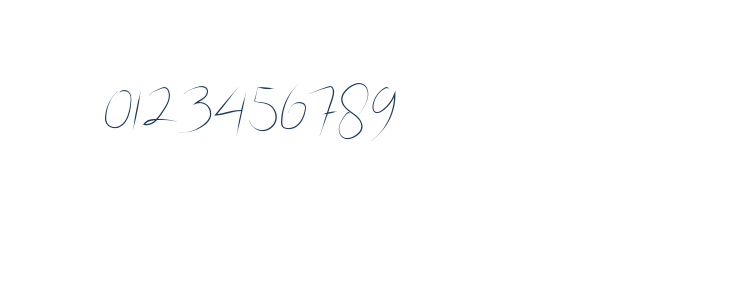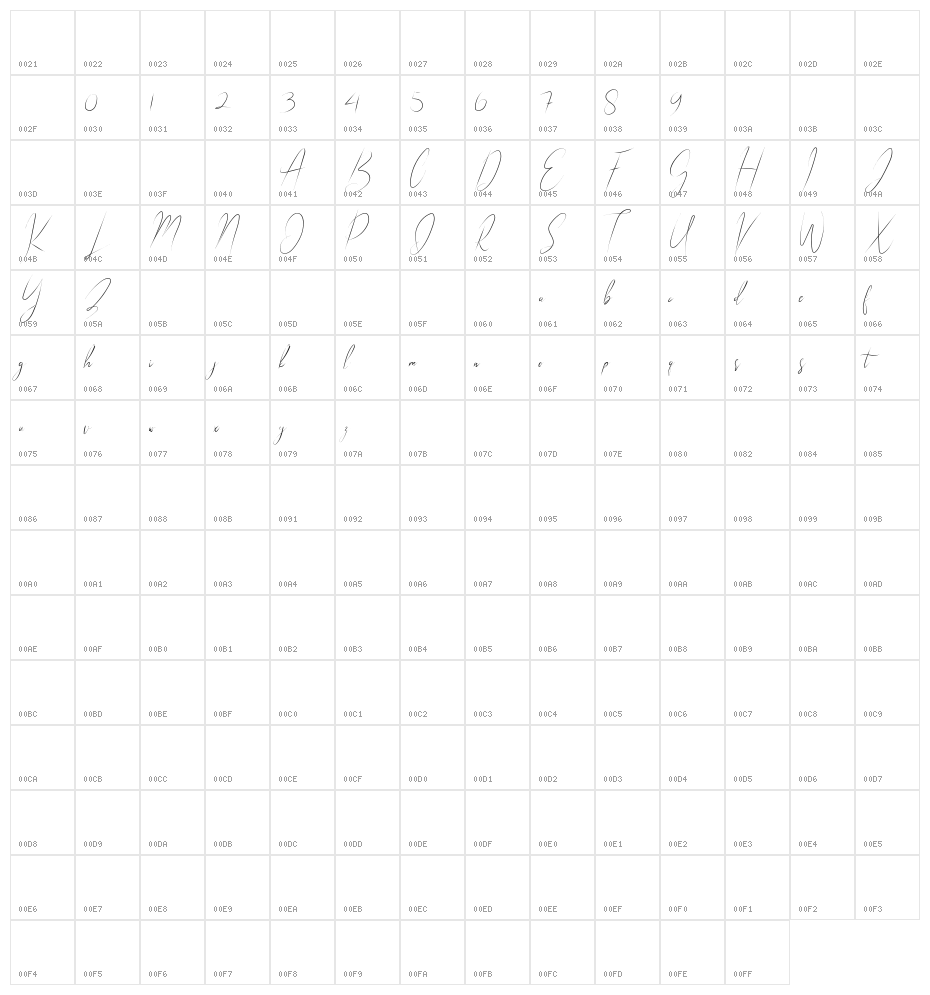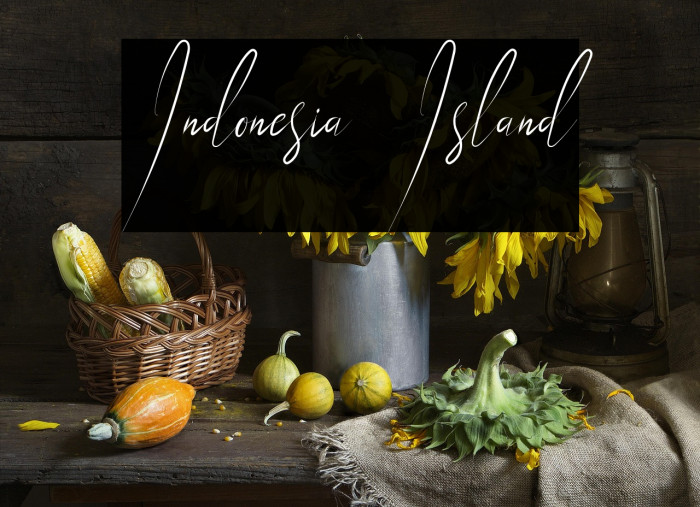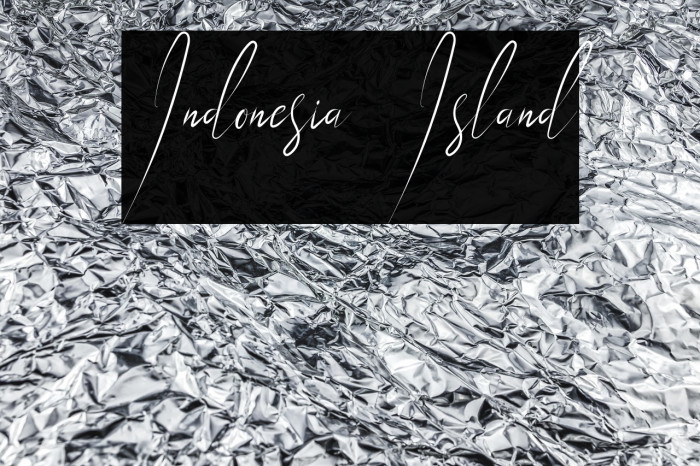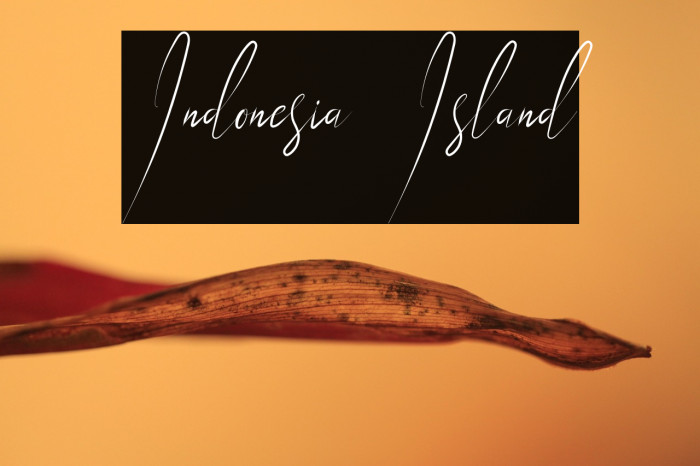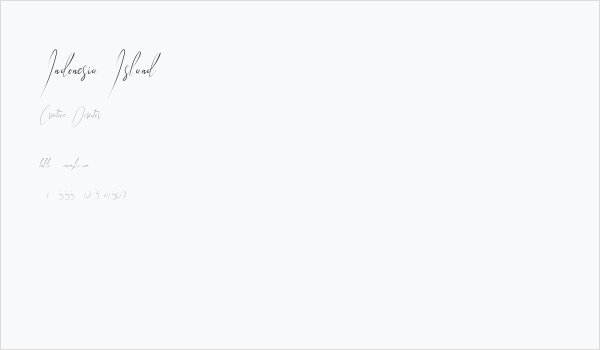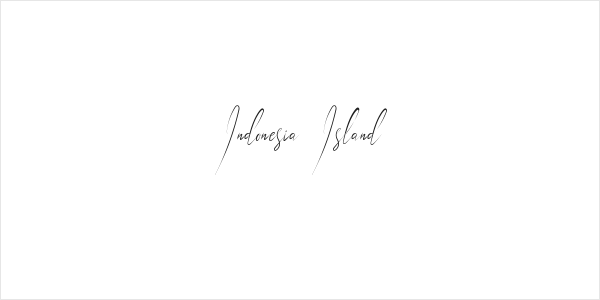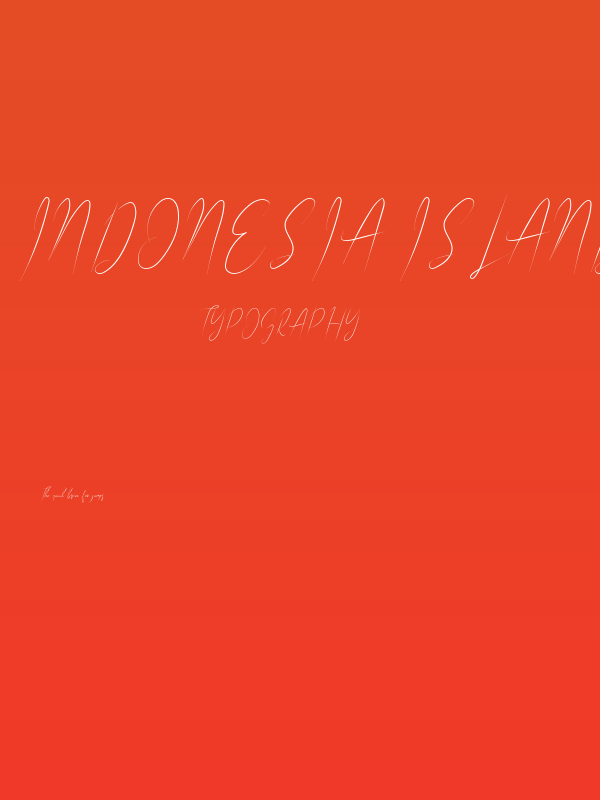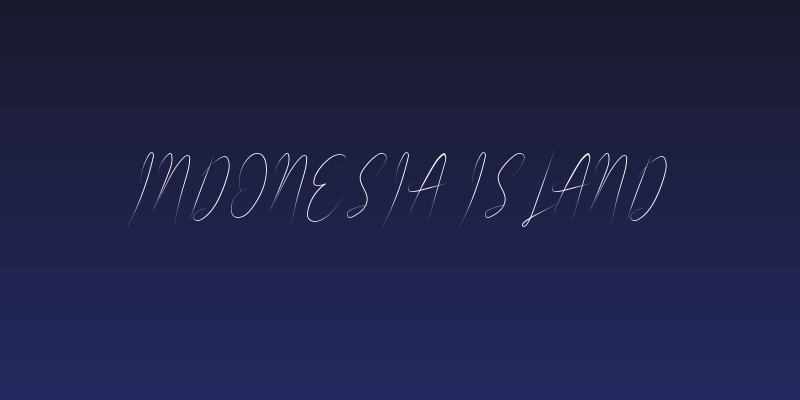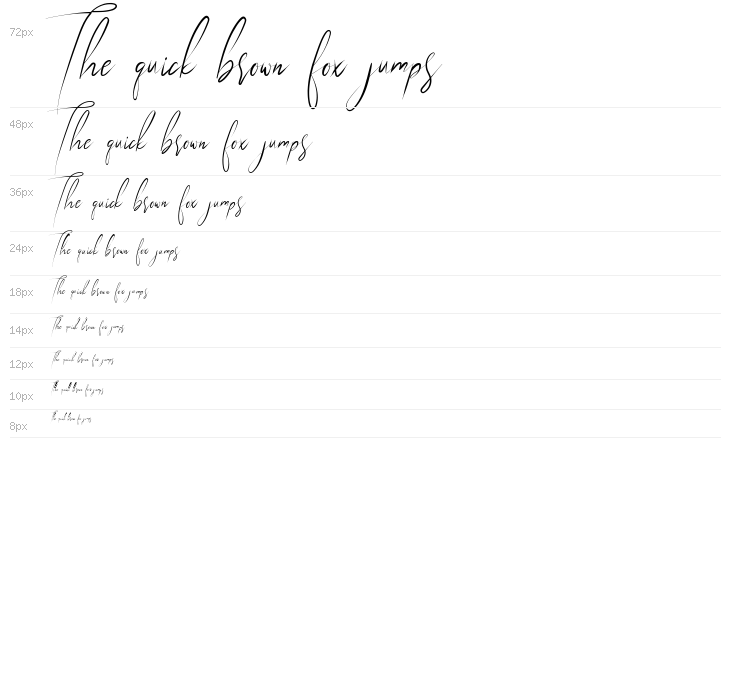
Indonesia Island Font
Indonesia Island Description
This font features an elegant and flowing script style, characterized by its thin, delicate strokes and graceful curves. The uppercase letters are tall and slender, with a slight slant that adds a sense of movement and fluidity. The lowercase letters are more compact, maintaining the same graceful style with additional flourishes that enhance its decorative appeal. The numerals are consistent with the overall aesthetic, featuring the same thin lines and elegant curves. This font exudes a sense of sophistication and is ideal for projects that require a touch of elegance and refinement.
| Overall Style | Elegant, Decorative |
| Proposed Projects | Ideal for wedding invitations, elegant branding, personal stationery, and upscale packaging. |